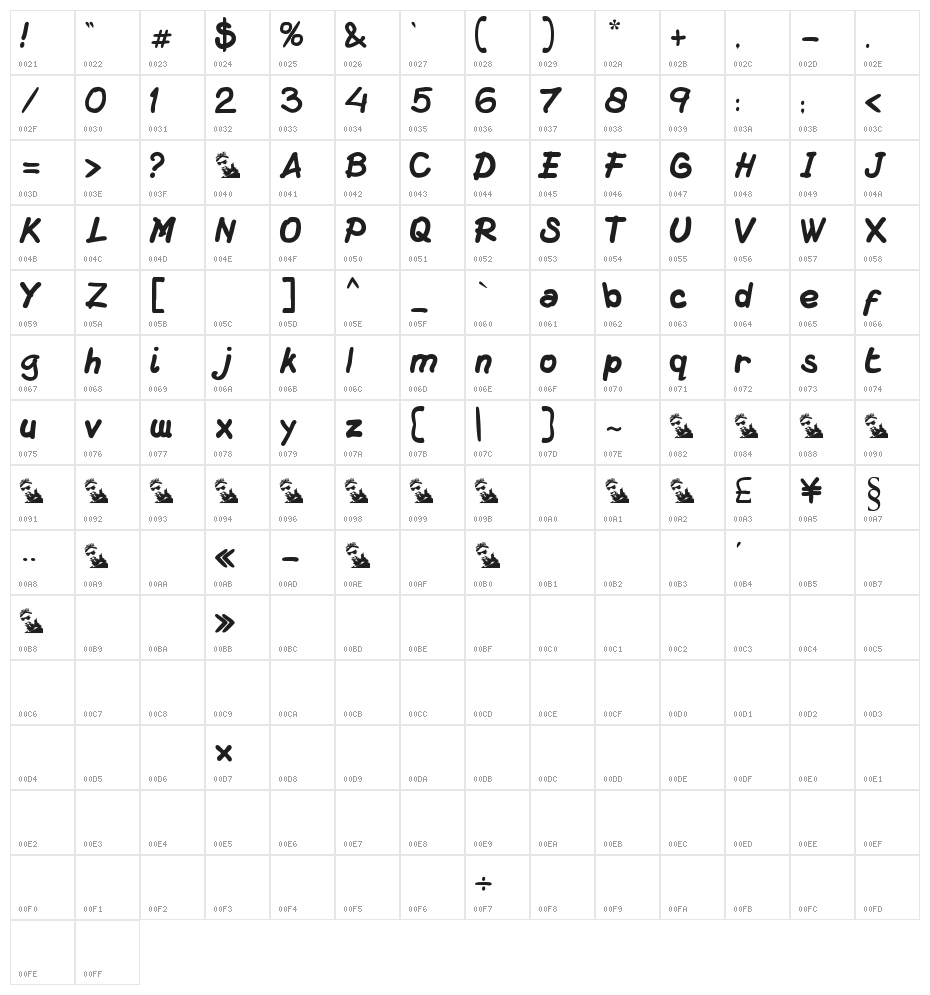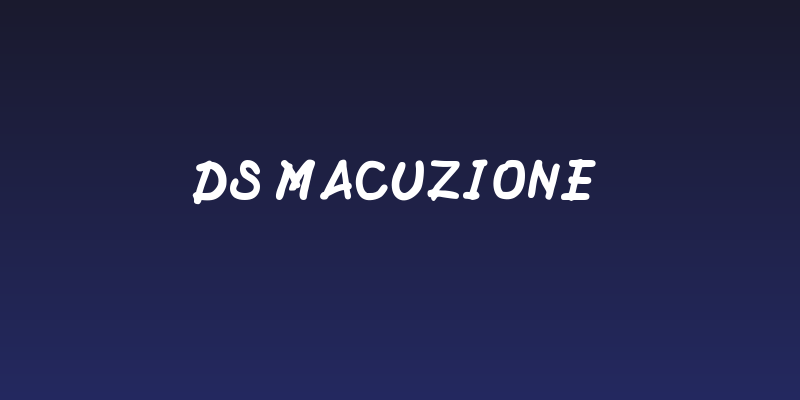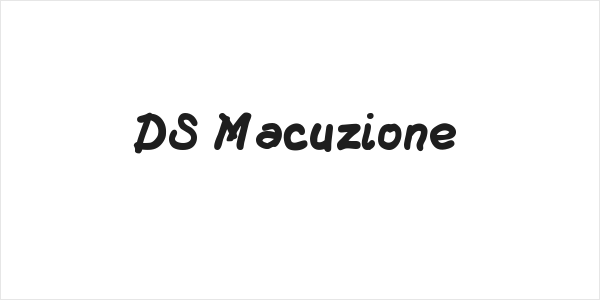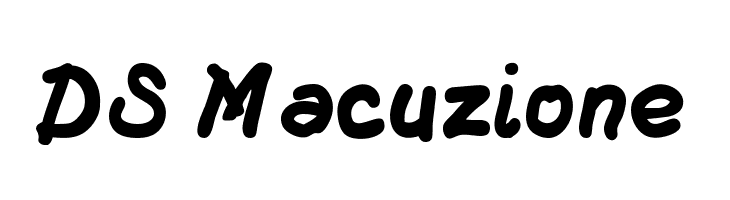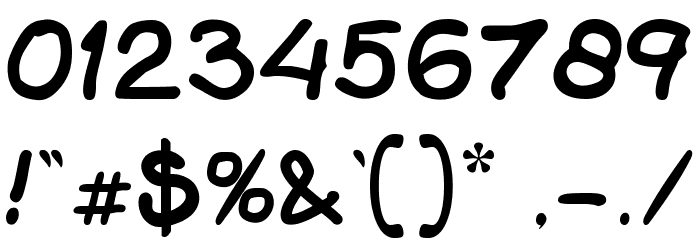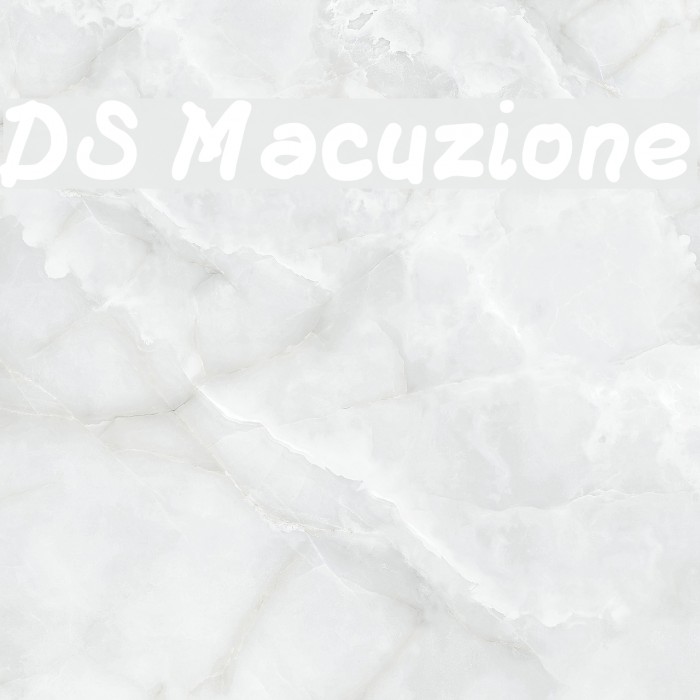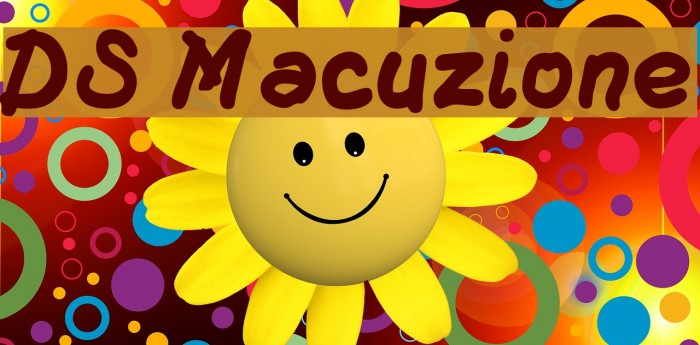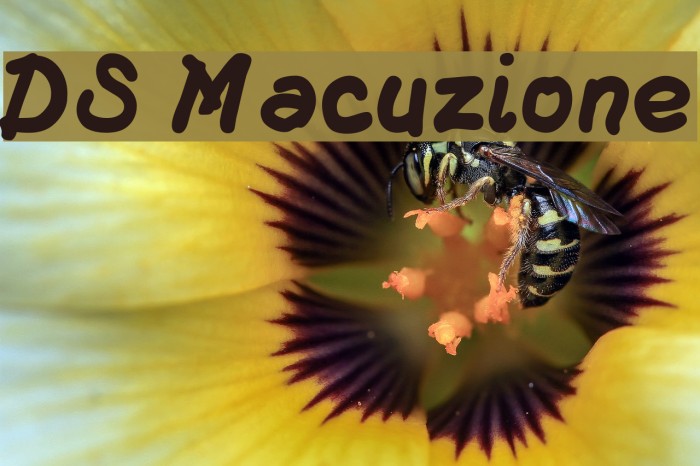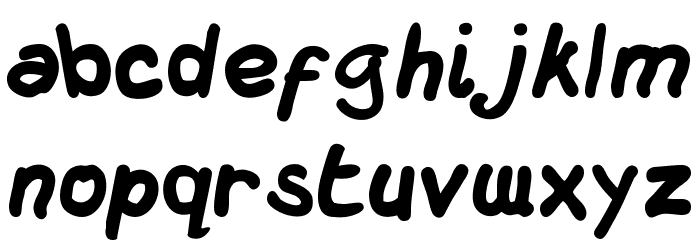
DS Macuzione Font
DS Macuzione Description
This font features a playful and casual handwritten style, characterized by its bold and rounded letterforms. The strokes are consistent in thickness, giving it a uniform appearance. The letters are slightly slanted, adding a dynamic and informal touch. The uppercase and lowercase letters maintain a cohesive look, with smooth curves and a friendly aesthetic. The numerals and special characters follow the same design principles, ensuring readability and versatility. This font is well-suited for projects that require a personal and approachable feel.
| Overall Style | Casual |
| Use Case | Headlines, Logos, Informal Text |
| Proposed Projects | Ideal for greeting cards, children's books, playful branding, and casual invitations. |